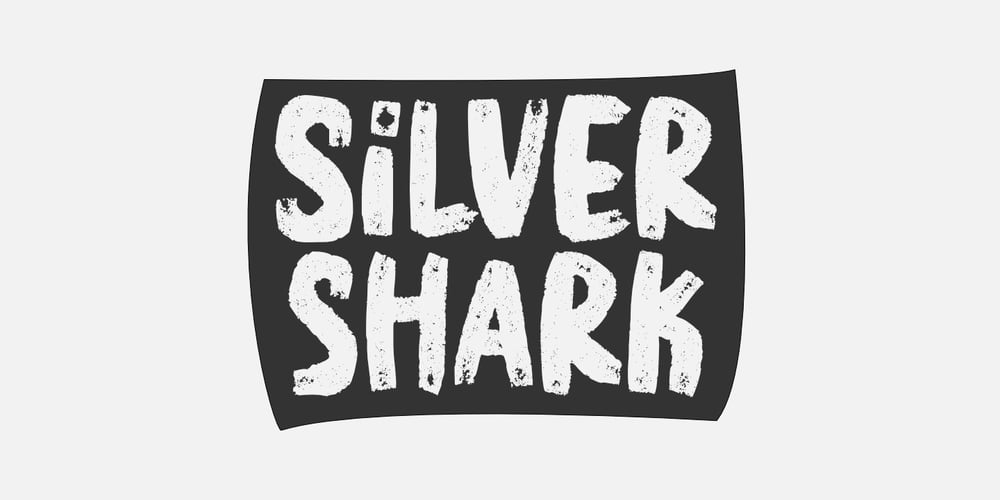
Silver Shark
Silver Shark font
Silver Shark Font Family was designed by Aldy Sidik and published by Epiclinez. Silver Shark contains 1 styles and family package options. Silver Shark is a cool and authentic brush display font. It has a bold, rough texture and as a result, it makes each of your creative designs stand out. Carefully handcrafted to grab the attention of the viewers, this font is ideal for logos, posters, headlines, branding, apparel and so much more.Silver Shark contains 199 glyphs. Supporting more than 66 languages, from English to Zulu. Accessible in Adobe Illustrator, Adobe Photoshop, Adobe InDesign, even works on Microsoft WordPUA Encoded and fully accessible without additional design software,